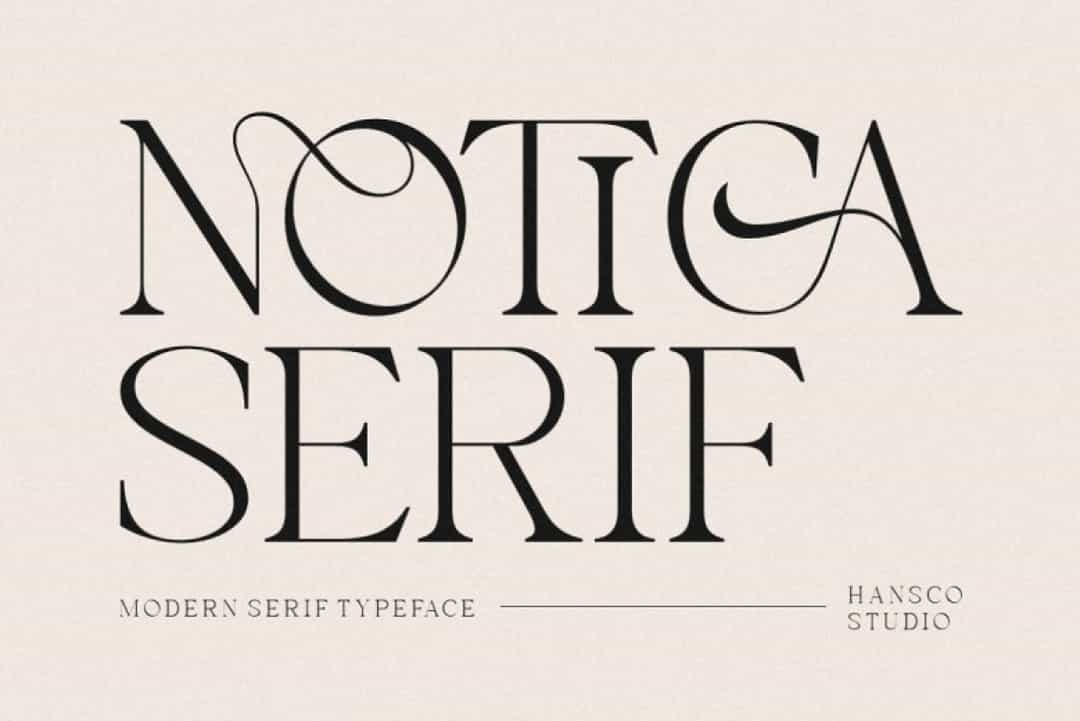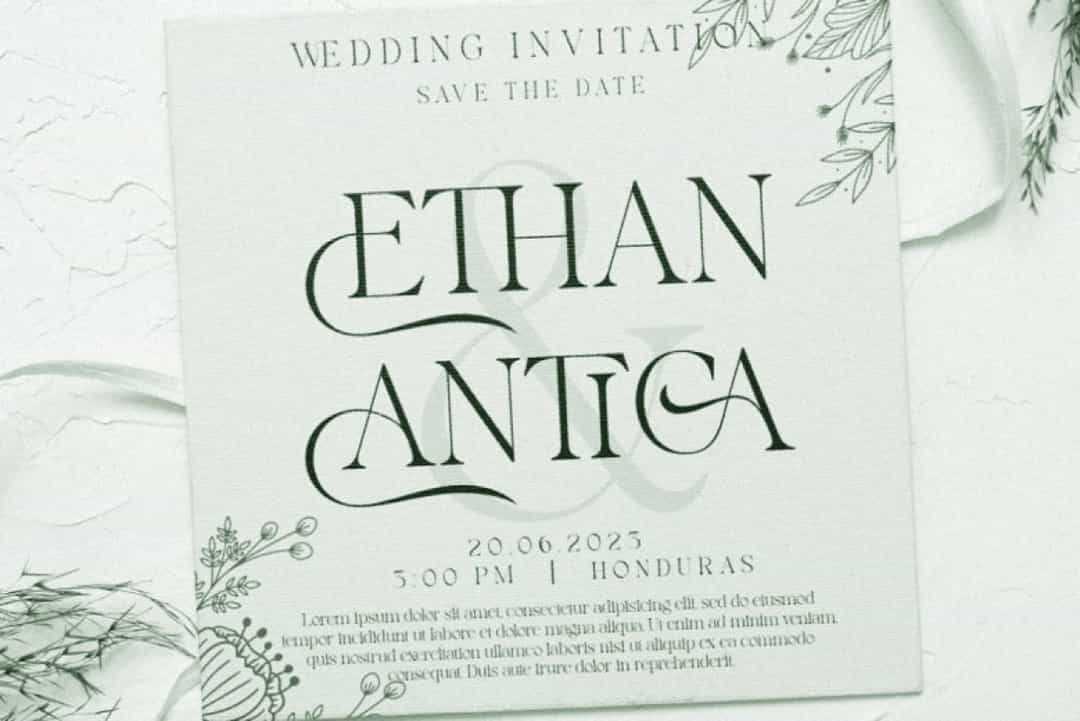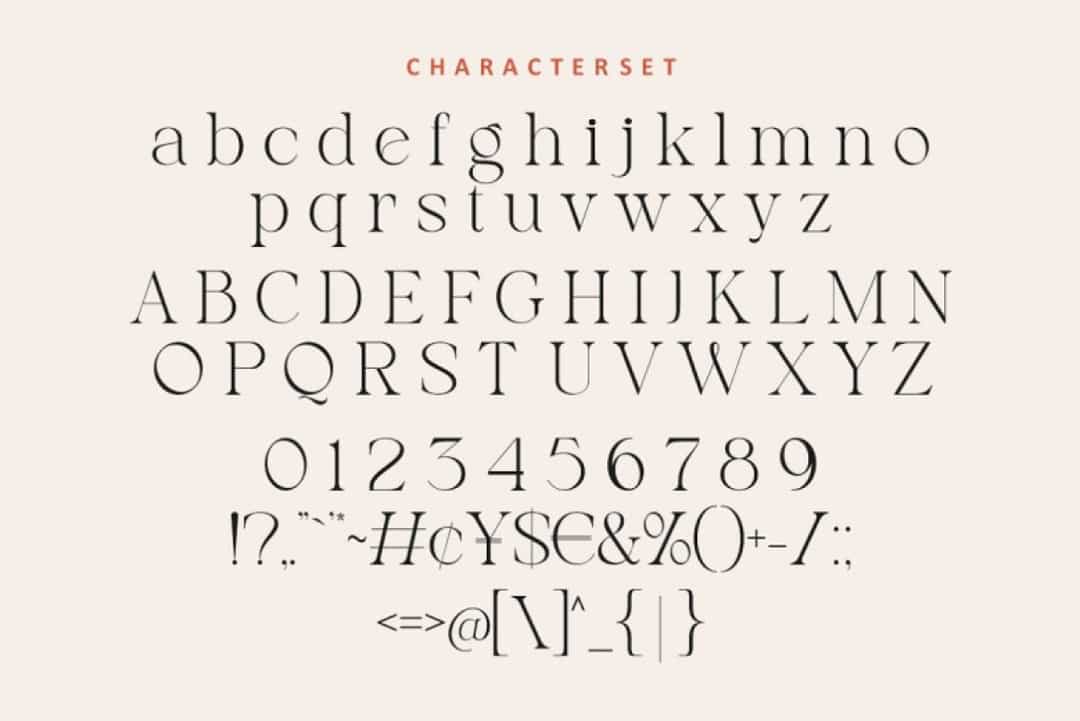
Notica is a stylish display serif font with an original design. Perfect for multiple projects, its elegant features make Notica Serif Font a timeless choice that fits beautifully in any style or aesthetic. I designed Notica Serif Font to reflect romantic feelings while remaining contemporary yet luxurious; ideal for logo designs, posters, crafts books, branding projects, prints invitations packaging labels wedding and any other project you might need it for!